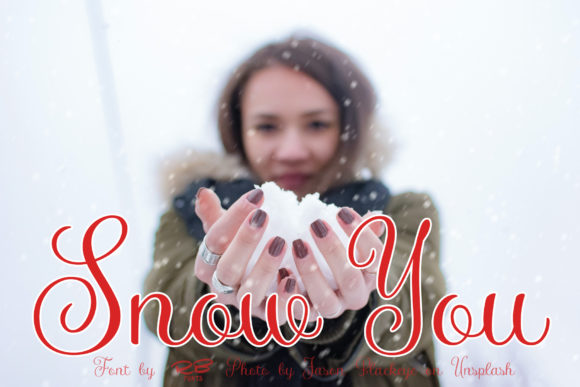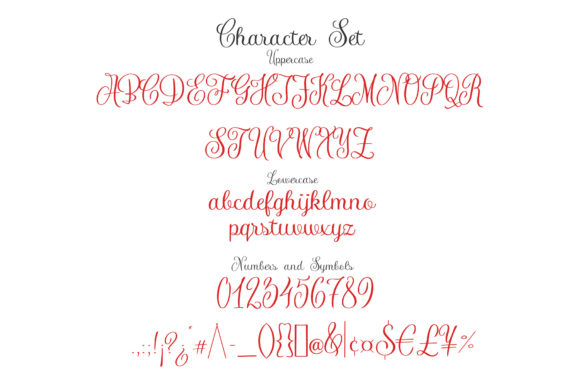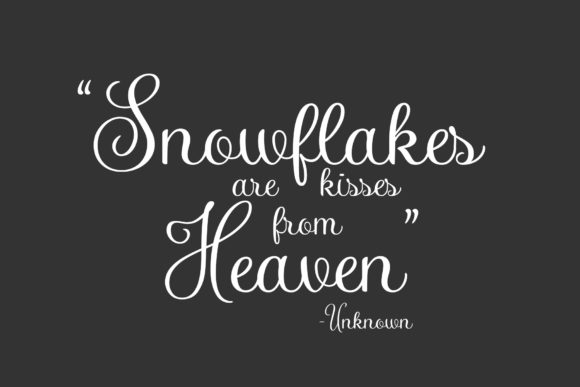
About Snow You Font
Snow You is a delightful handwritten font that exudes warmth and friendliness. With its carefully crafted and well-balanced characters, this font brings a touch of charm and elegance to any design project.
The soft curves and gentle strokes of Snow You create a sense of playfulness and approachability, making it a perfect choice for a wide range of creative endeavors. Whether you’re designing greeting cards, crafting invitations, or working on branding materials, Snow You adds a unique and personal touch that resonates with your audience.
The versatility of Snow You is one of its greatest strengths. It effortlessly complements various design styles, from whimsical and lighthearted to elegant and sophisticated. Its organic and flowing letterforms make it ideal for creating eye-catching headlines, captivating logos, or even adding a personal touch to handwritten quotes and messages.
Don’t be afraid to explore the alternate characters and ligatures that Snow You offers. These additional options allow you to experiment and customize your designs further, creating a truly unique and personalized look.
Whether you’re working on a project for yourself or a client, Snow You is sure to elevate your designs and bring them to life. Its friendly and inviting nature creates a connection with the viewer, evoking a sense of warmth and positivity.
So, let Snow You be your creative companion, inspiring your imagination and breathing life into your designs. Embrace its sweetness, embrace its versatility, and watch as it transforms your ideas into captivating works of art.